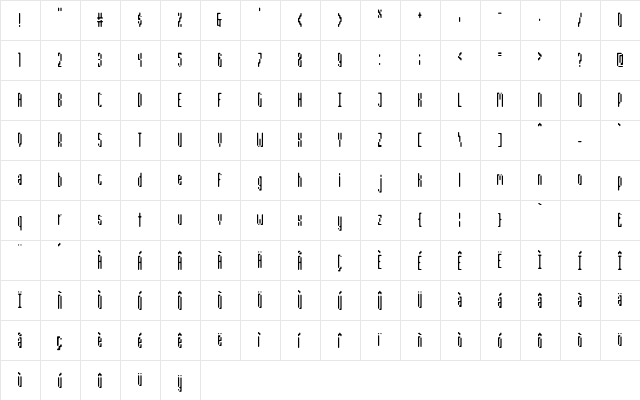
TekStencil Roman
Design Context for TekStencil Typeface
TekStencil has the rough pragmatism of spray-painted stencil signage, adding a raw, street-level authenticity to designs.
Ideal for industrial branding, streetwear, military-adjacent aesthetics, and urban signage projects.
Pro Tip: Pair TekStencil with raw, utilitarian design elements — exposed concrete textures, flat colour, and minimal ornamentation suit it well.